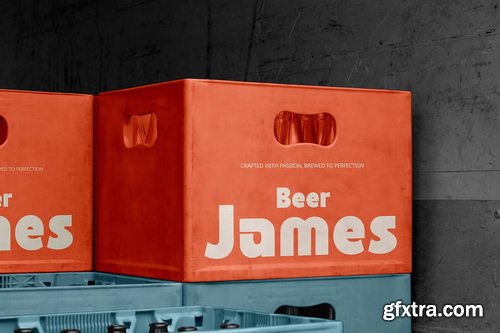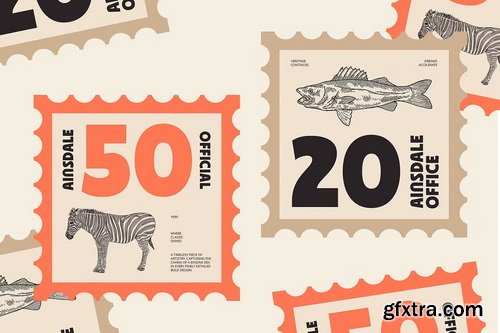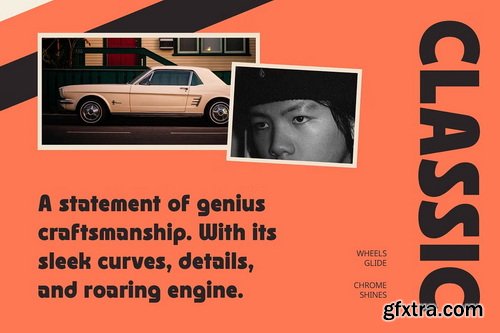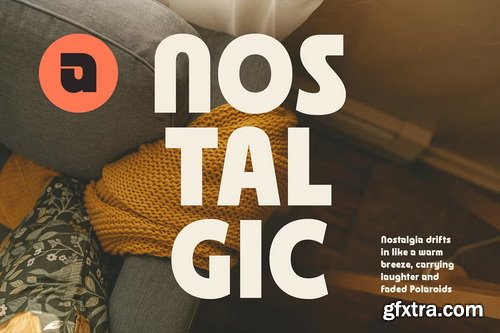
CreativeMarket - CS Ragout - Bold Font
A Bold and Funky Display Font CS Ragout is a modern sans-serif display font designed to bring boldness and personality to any design. Its thick, dynamic letterforms exude confidence, while the funky, expressive details add a lively touch. This font is made for those who want to make a statement with style. Perfect for Eye-Catching Designs Whether used for branding, posters, product packaging, or social media graphics, CS Ragout ensures high visibility and impact. Its bold presence makes it ideal for projects that demand attention-grabbing headlines and memorable typography.